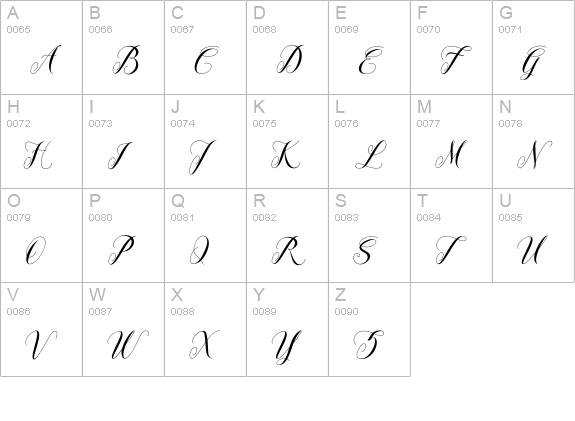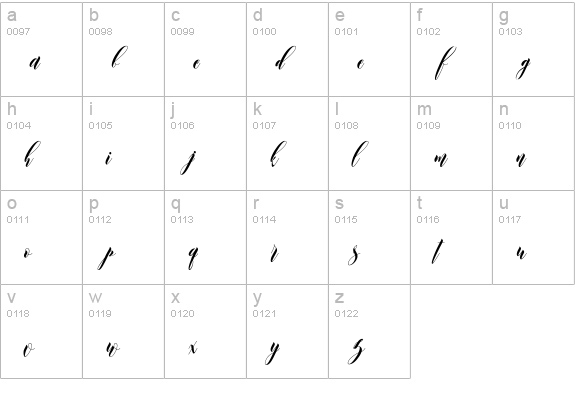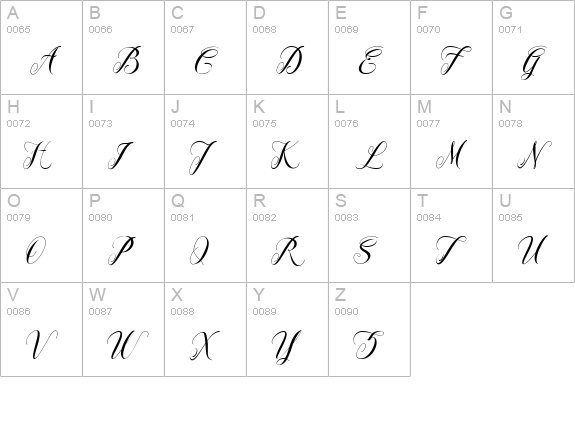
Leather Font Details
Leather is a free for personal use font in the Script > Calligraphy category, designed by sinfa.co. It has been downloaded 822 times and is available for Windows, Mac and Linux.
Introducing the exquisite Leather font, a captivating typeface that exudes elegance and sophistication. With its sleek lines and stylish curves, this font is perfect for creating stunning designs that demand attention. The Leather font is a versatile choice for various projects, from branding to packaging, posters, and more.